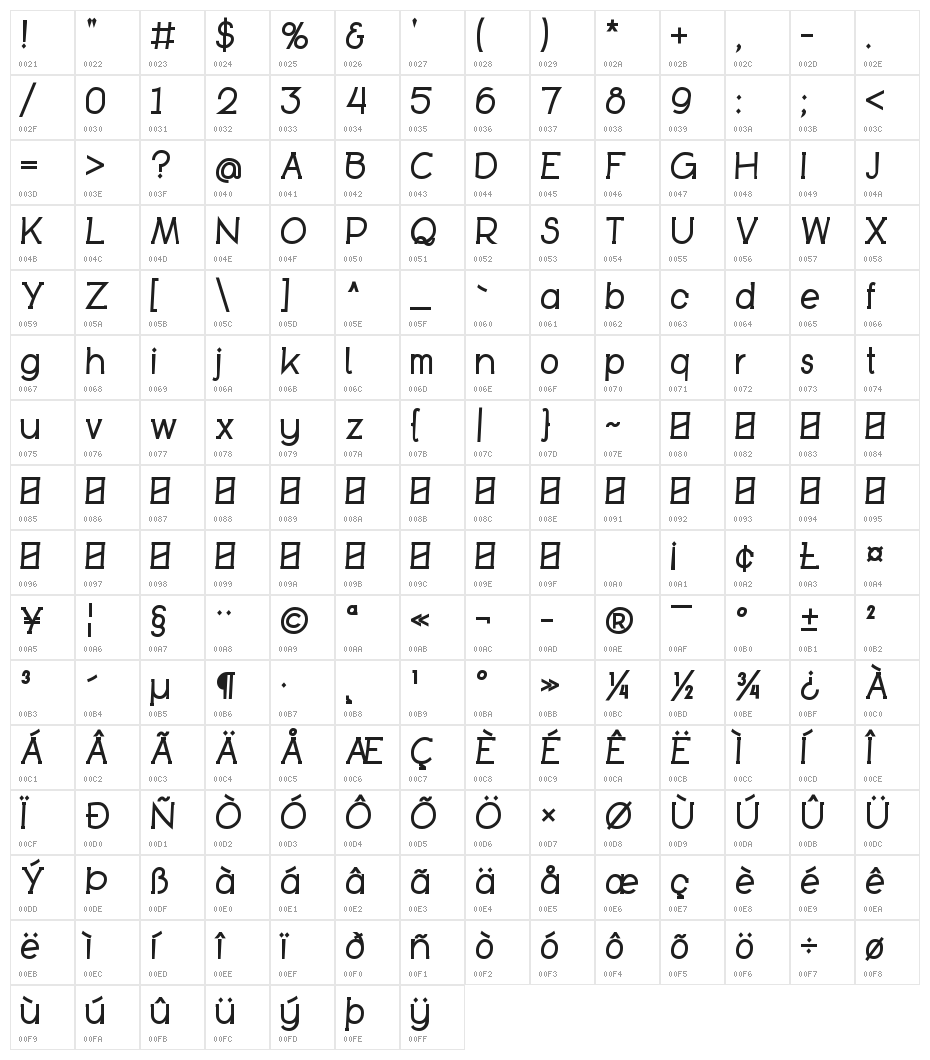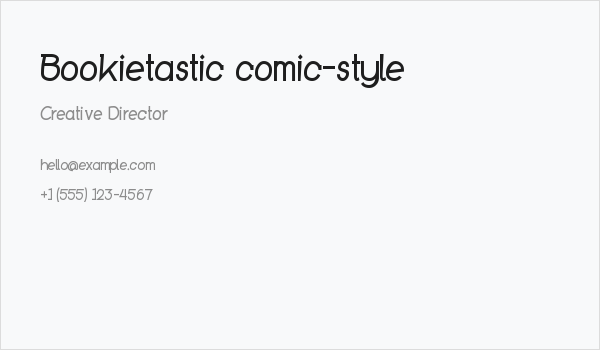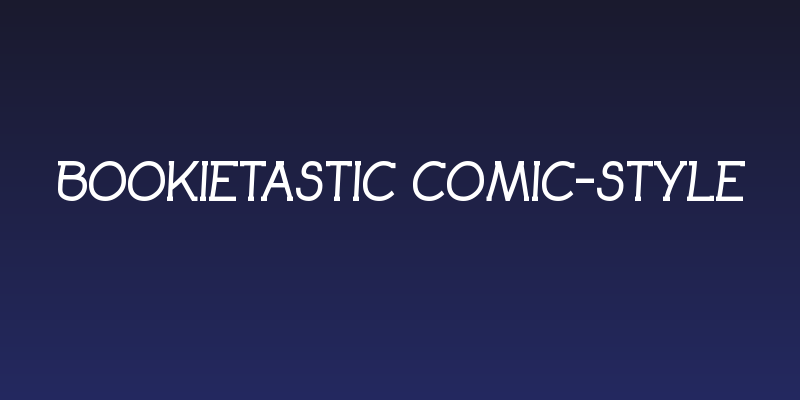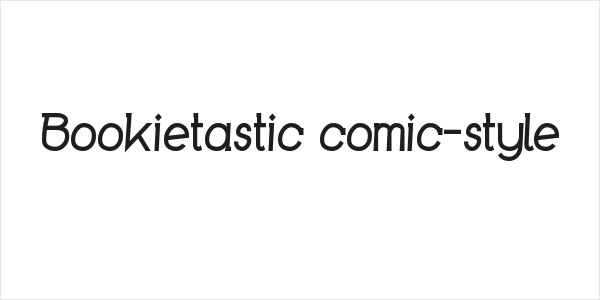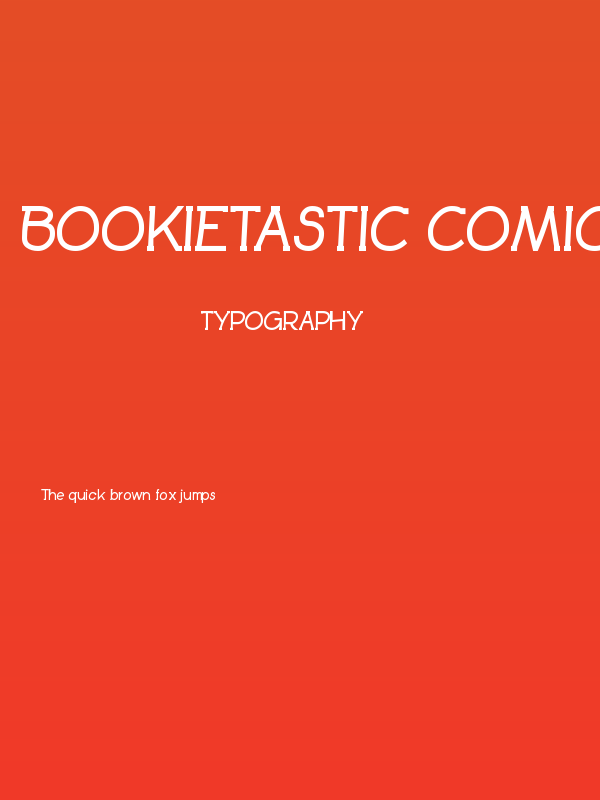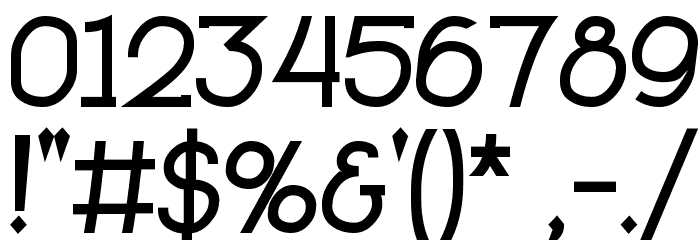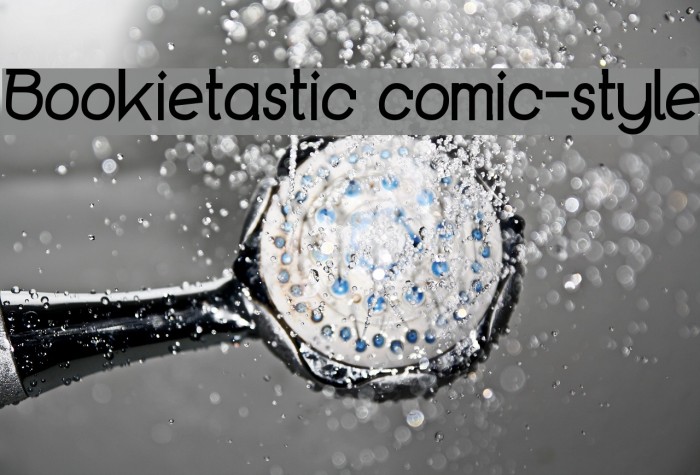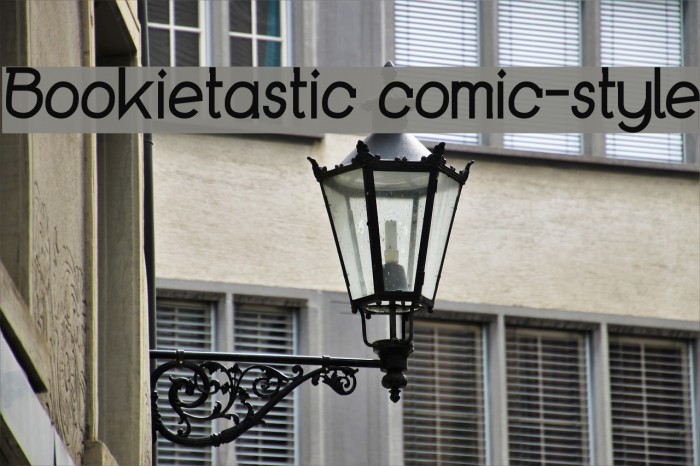
Bookietastic comic-style Font
Bookietastic comic-style Description
This font exudes a playful and dynamic comic style, characterized by its bold and slightly irregular letterforms. The uppercase letters are tall and slightly condensed, with a whimsical flair that adds a sense of movement and energy. The lowercase letters maintain a consistent style, with rounded edges and a friendly appearance. The numerals are clear and bold, ensuring readability while maintaining the overall playful aesthetic. Special characters are designed with the same comic-inspired style, making them suitable for creative and informal contexts. This font is perfect for projects that require a fun and engaging visual element.
| Overall Style | Comic, Playful |
| Proposed Projects | Ideal for comic books, children's books, playful branding, and creative posters. |